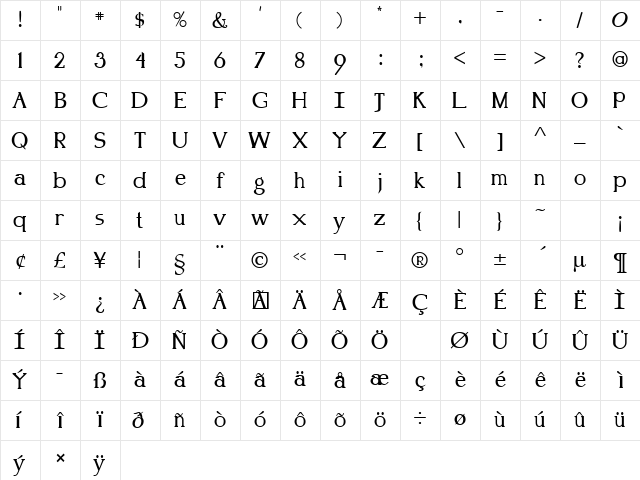
Kennon Regular
Design Context for Kennon
Kennon is a composed and adaptable typeface that performs quietly and consistently across a wide range of design contexts.